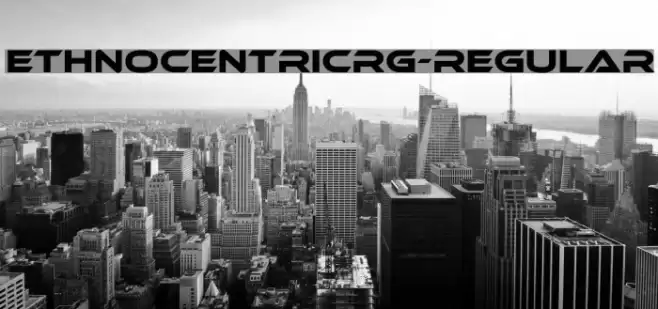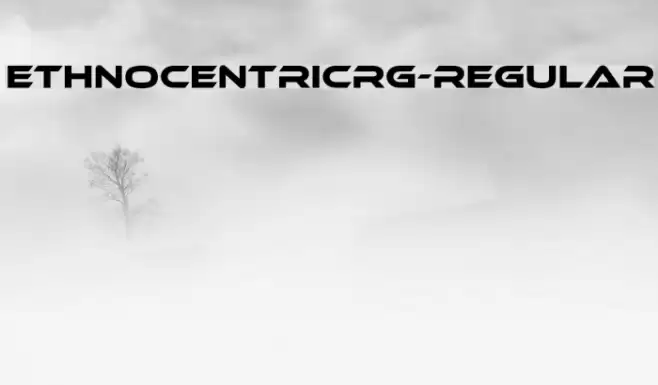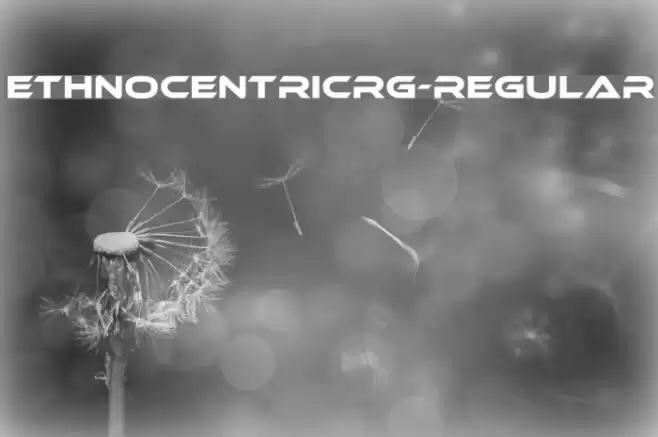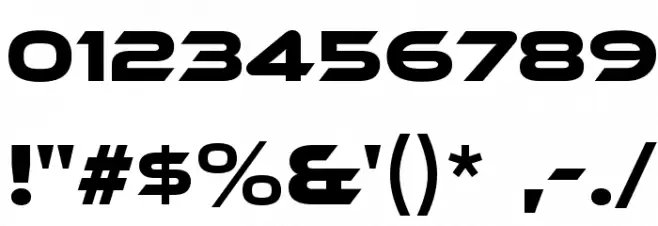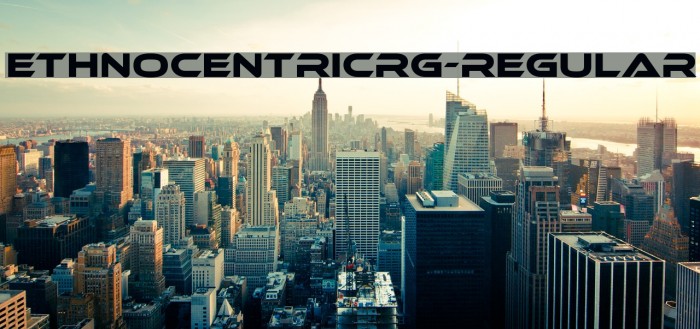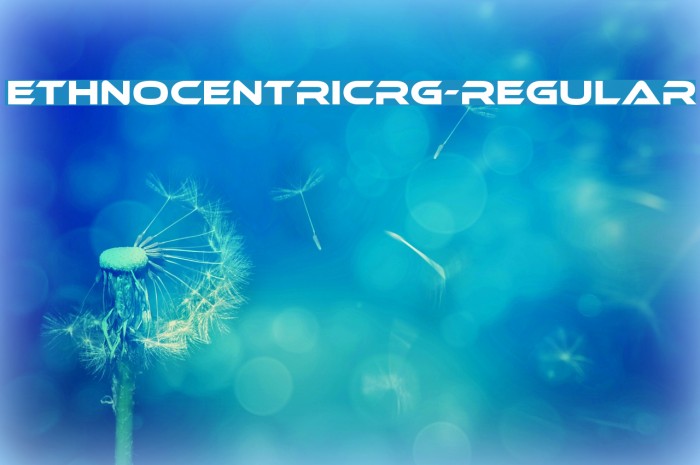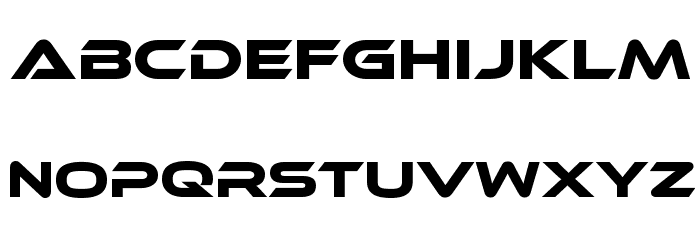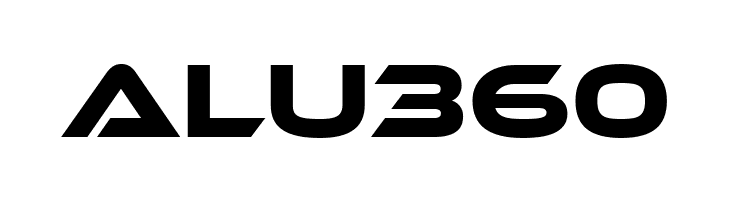
EthnocentricRg-Regular Font
EthnocentricRg-Regular Description
This font features a bold and futuristic design with sharp, angular edges and a geometric structure. The uppercase letters are particularly striking, with a strong presence and a sense of movement. The lowercase letters maintain the same angular style, creating a cohesive look across the alphabet. Numbers are equally bold, with a consistent weight that matches the letters. Special characters are designed to fit seamlessly with the rest of the font, maintaining the same angular and geometric aesthetic. The overall style is modern and dynamic, making it suitable for projects that require a strong visual impact.
A bold, futuristic font with sharp, angular edges and a geometric design from Futuristic fonts.
- Proposed Projects: Ideal for technology branding, sci-fi themed projects, video game titles, and modern posters.